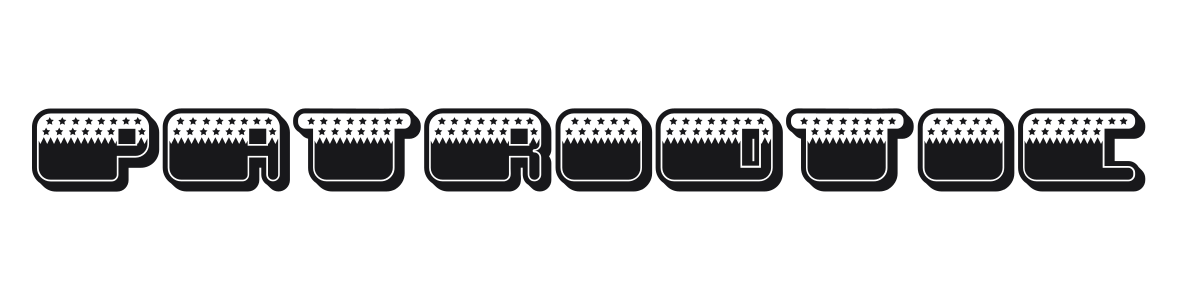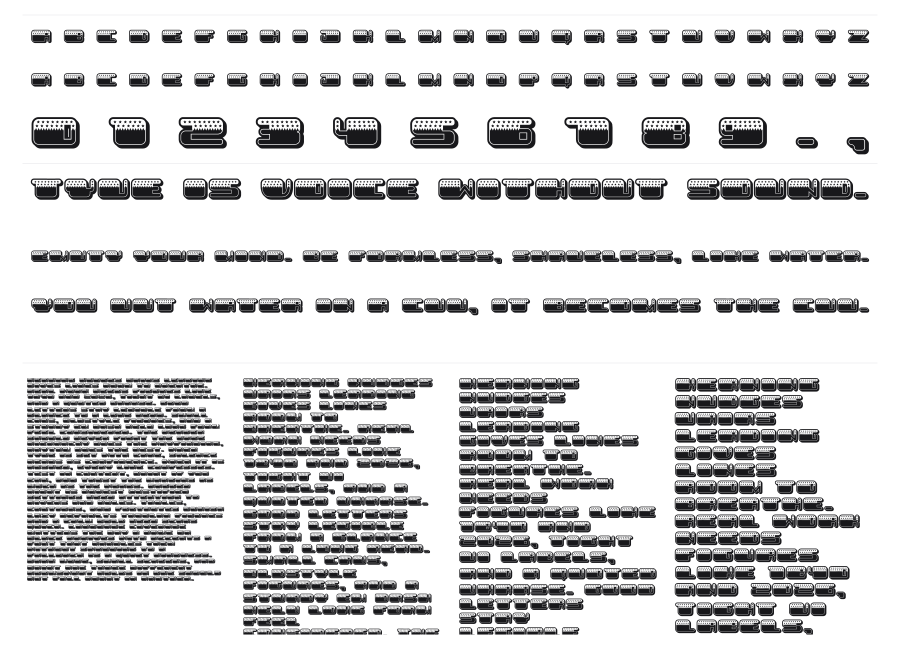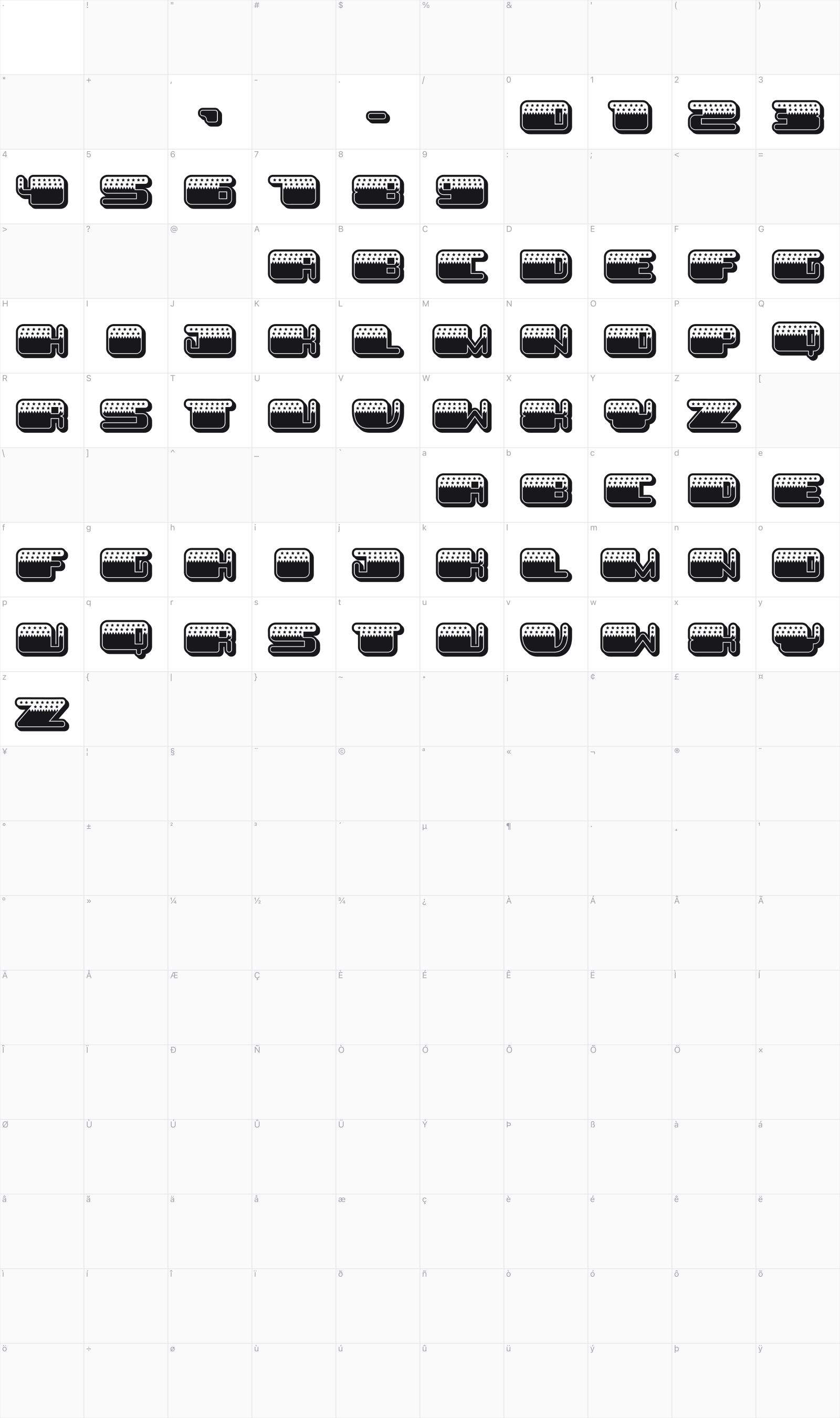
Patriotic
Patriotic is an ultra-bold rounded display font built on chunky, stadium-shaped blocks with a retro dotted-fill texture and a layered drop shadow. The design channels 1970s Americana arcade lettering and patriotic pop-art in equal measure. It commands attention at large sizes on posters, merchandise, and event graphics.